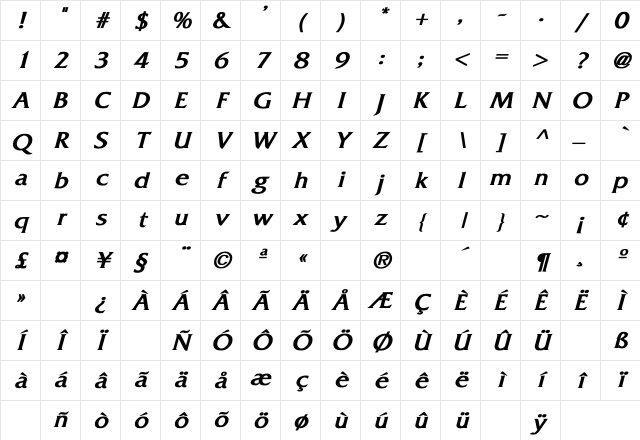
Whitethorning Bold Italic
Design Context for Whitethorning
Whitethorning is a composed and adaptable typeface that performs quietly and consistently across a wide range of design contexts. The slanted form adds forward momentum and visual energy. Its bold stroke weight gives it real presence on the page.
Pro Tip: Use Whitethorning for emphasis, pull quotes, and subheadings where its slanted energy can add rhythm to the layout.